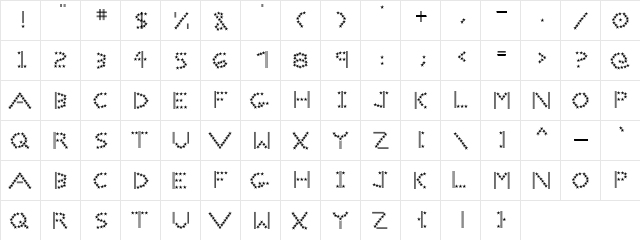
SpangledMast Regular
Design Context for SpangledMast Typeface
SpangledMast is a composed and adaptable typeface that performs quietly and consistently across a wide range of design contexts.